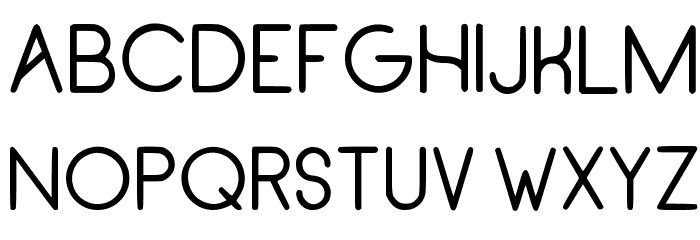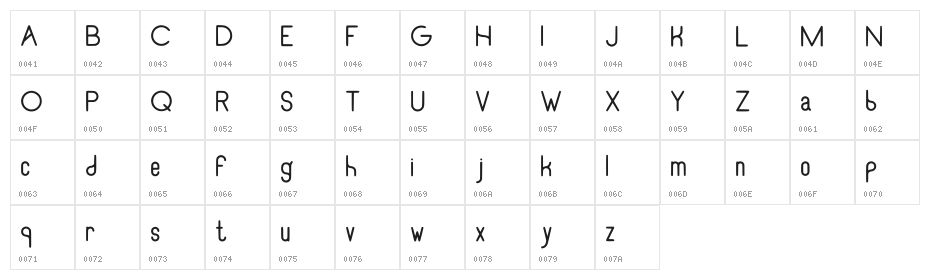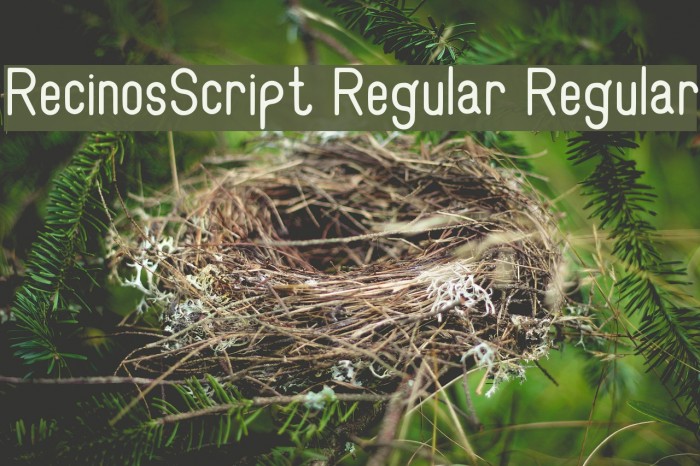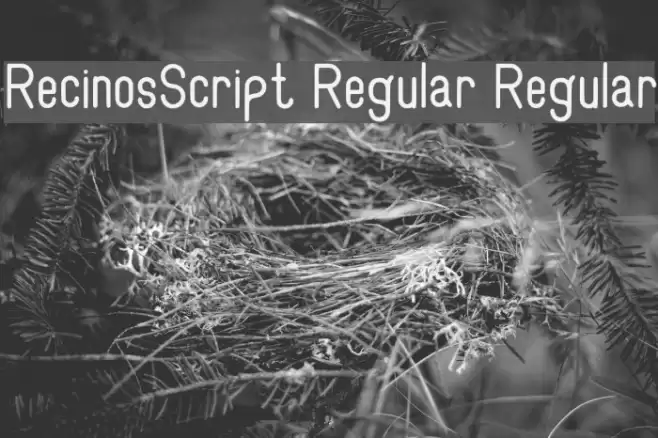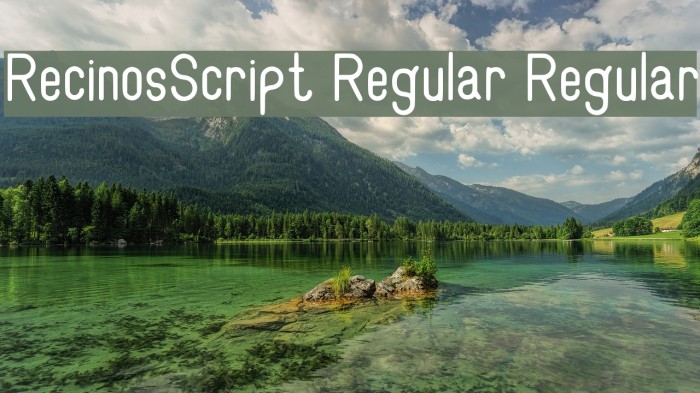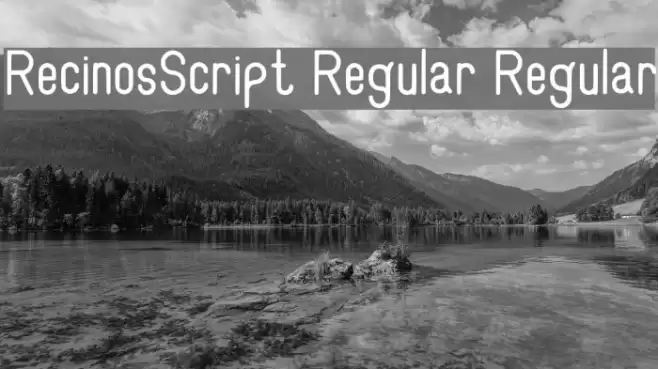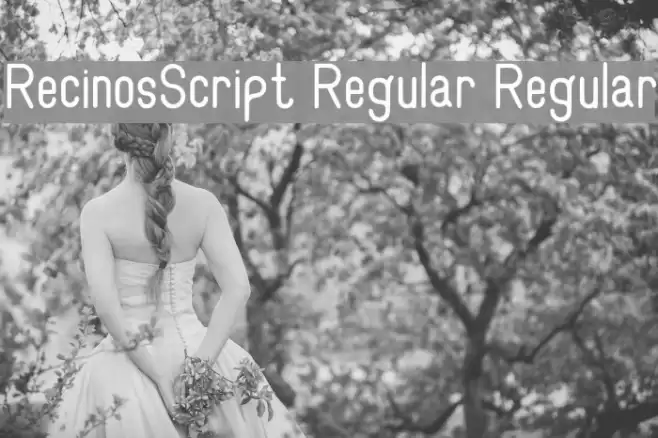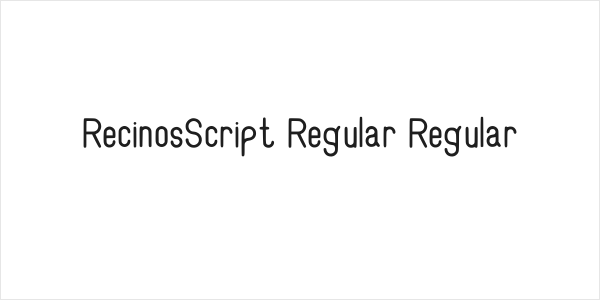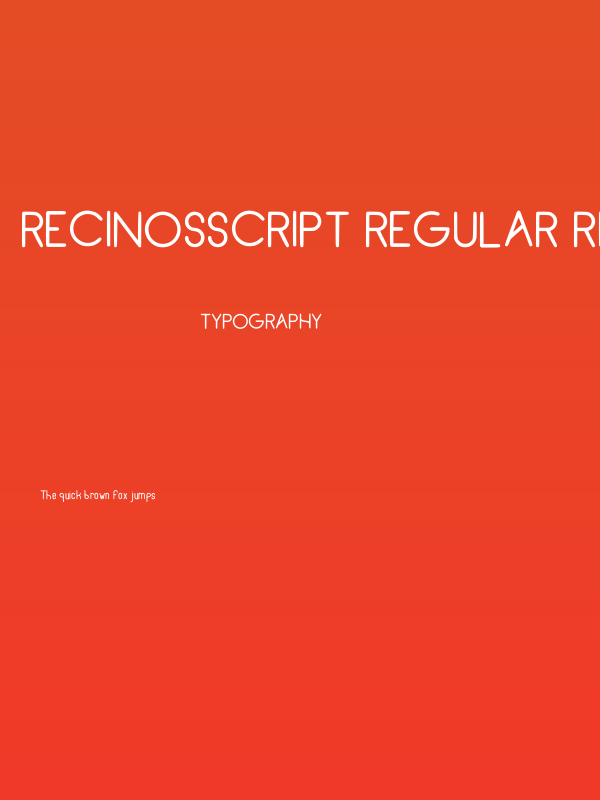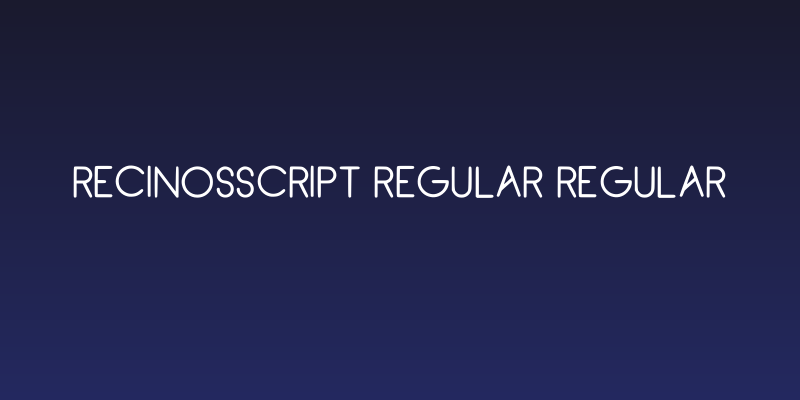
RecinosScript Regular Font
RecinosScript Regular Description
This font features a playful and whimsical style with a handwritten feel. The characters are rounded and smooth, giving it a friendly and approachable appearance. The uppercase letters maintain a consistent height, while the lowercase letters exhibit slight variations in height and alignment, adding to the casual aesthetic. The font includes a full set of uppercase and lowercase letters, numbers, and a selection of special characters. Its unique style makes it suitable for creative projects that require a personal touch.